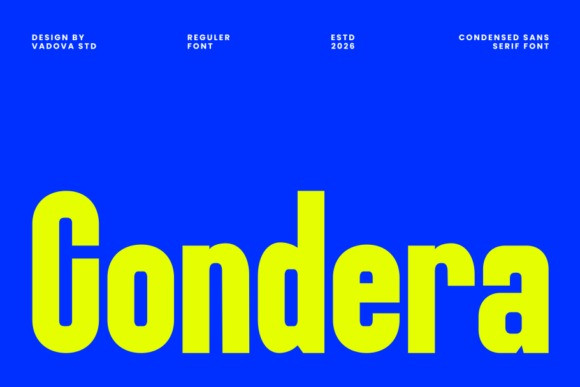
Condera Sans Font
Designer: Vadova Std
Condera Sans Font is a bold condensed sans serif font designed for maximum impact and space efficiency. With its tall proportions, strong vertical rhythm, and clean geometric construction, Condera delivers powerful headlines while maintaining clarity and balance. The condensed structure allows more content to fit into tight layouts without sacrificing legibility. Its modern and confident personality makes it perfect for branding, posters, editorial titles, sports graphics, and digital campaigns.
Condera is ideal for branding systems, sports graphics, streetwear labels, editorial headlines, posters, packaging, event promotions, tech campaigns, and social media marketing. Its condensed form makes it especially suitable for tight layouts, vertical compositions, and bold messaging that needs to stand out instantly.